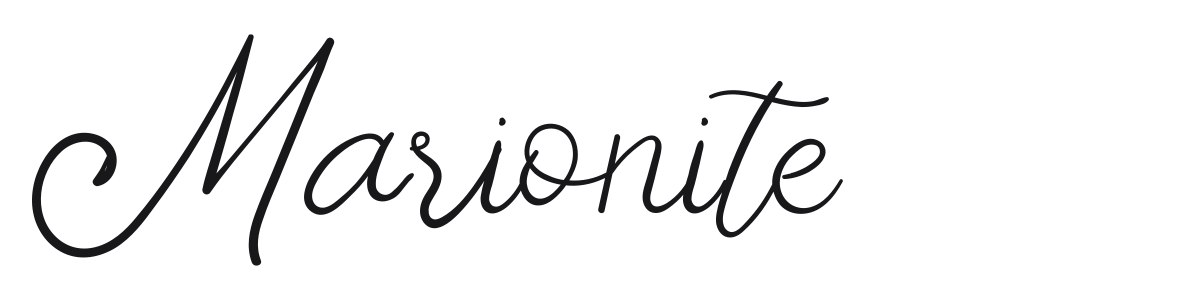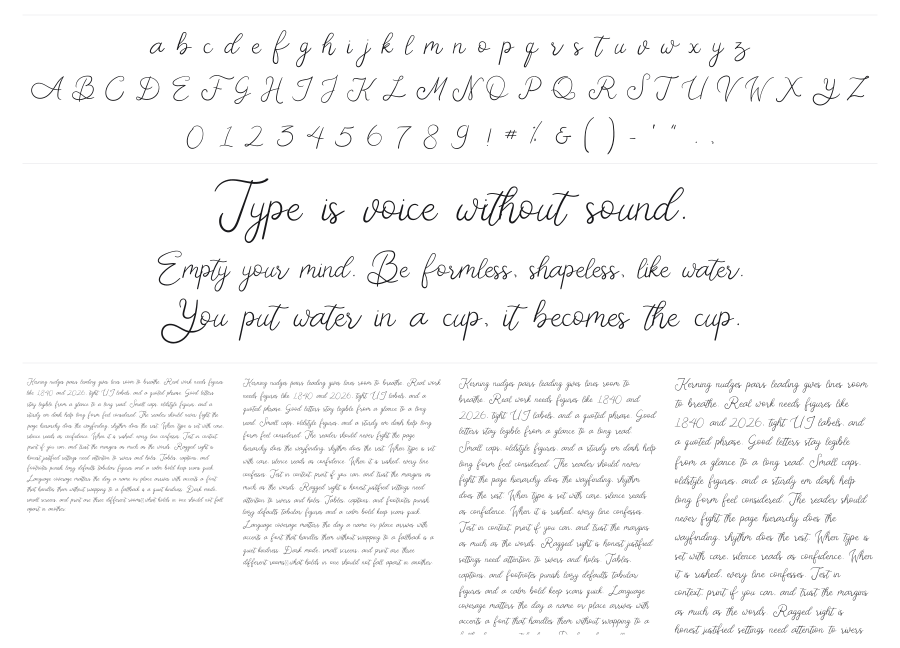
Marionite
Marionitie is a flowing thin cursive script with generously looped ascenders and a continuous, connected rhythm across characters. The near-monoweight strokes keep it light and airy, lending it a casual elegance that works well for wedding stationery, lifestyle branding, and packaging. It reads best at large sizes where the looping details can breathe.